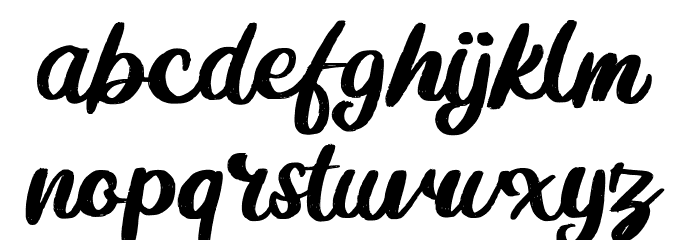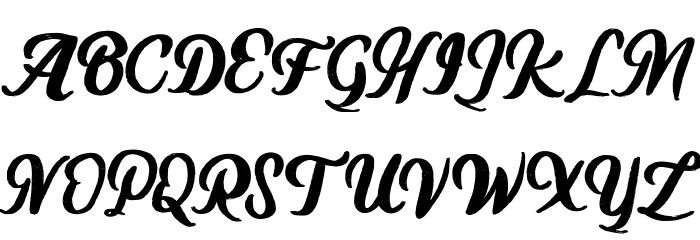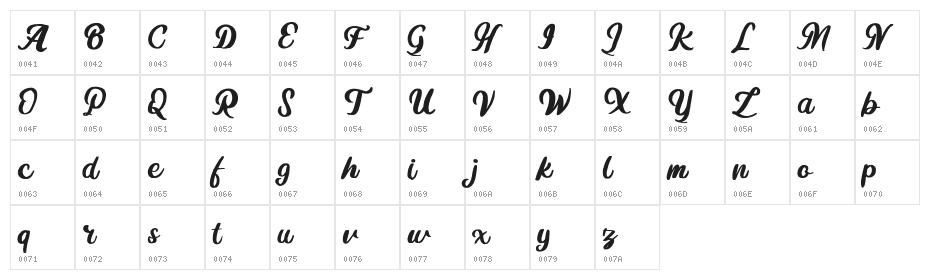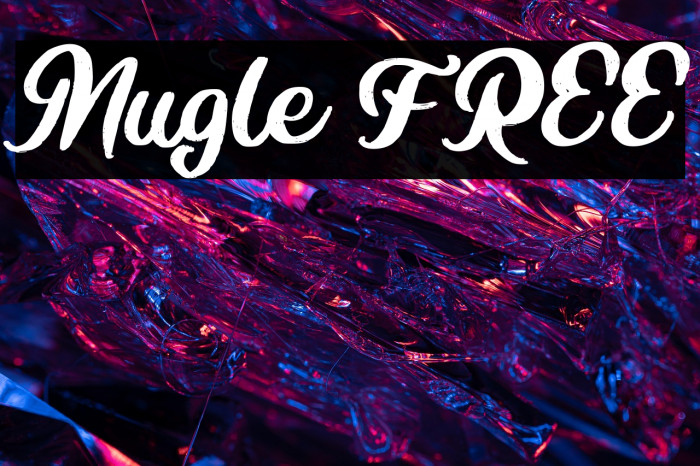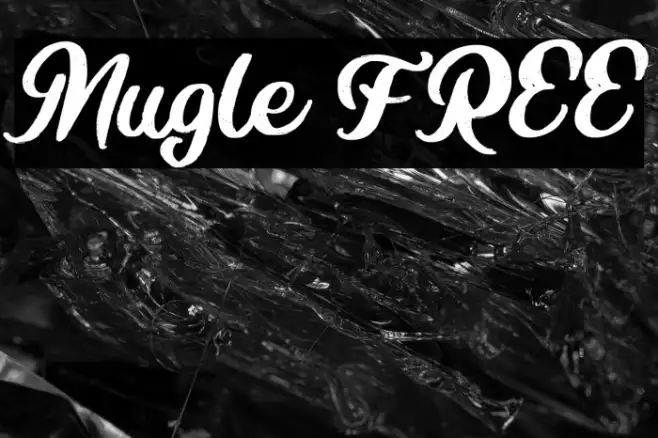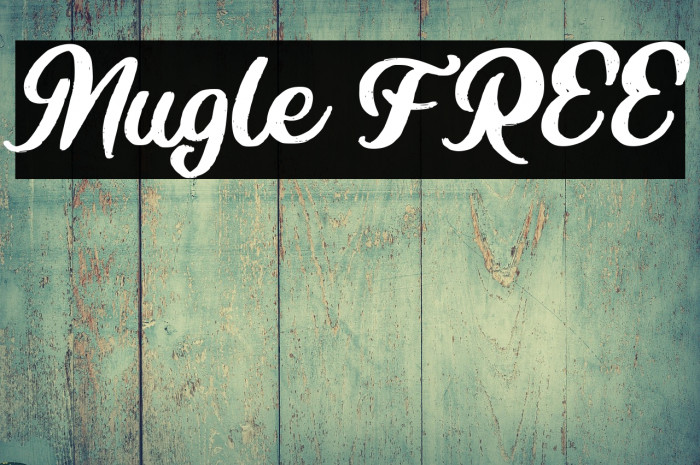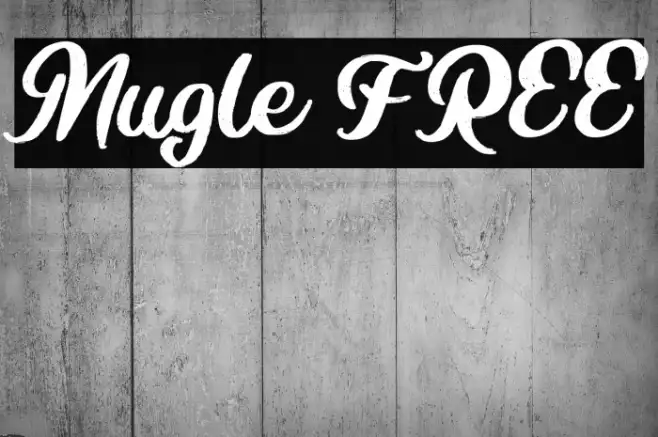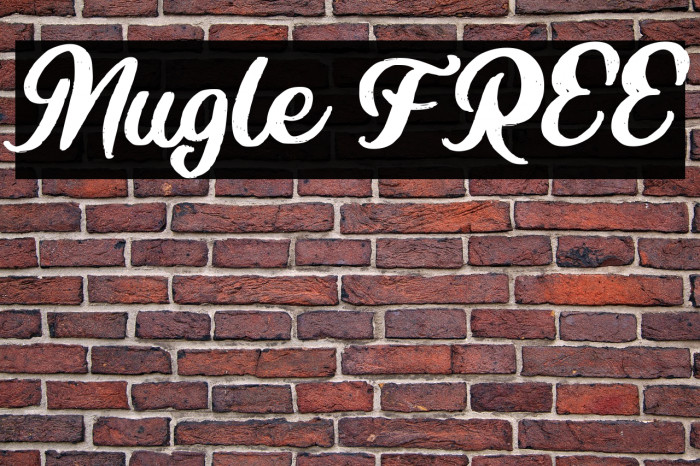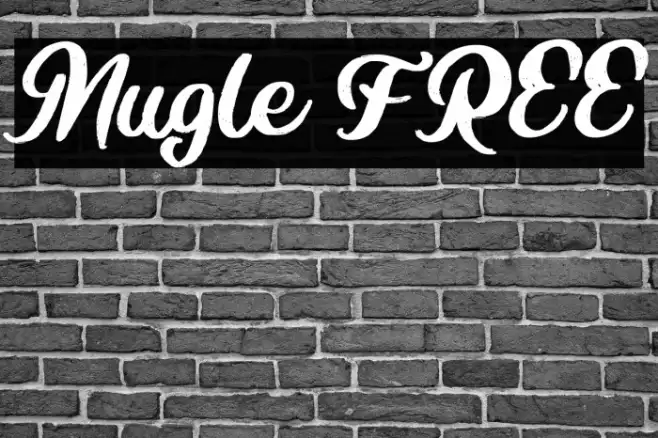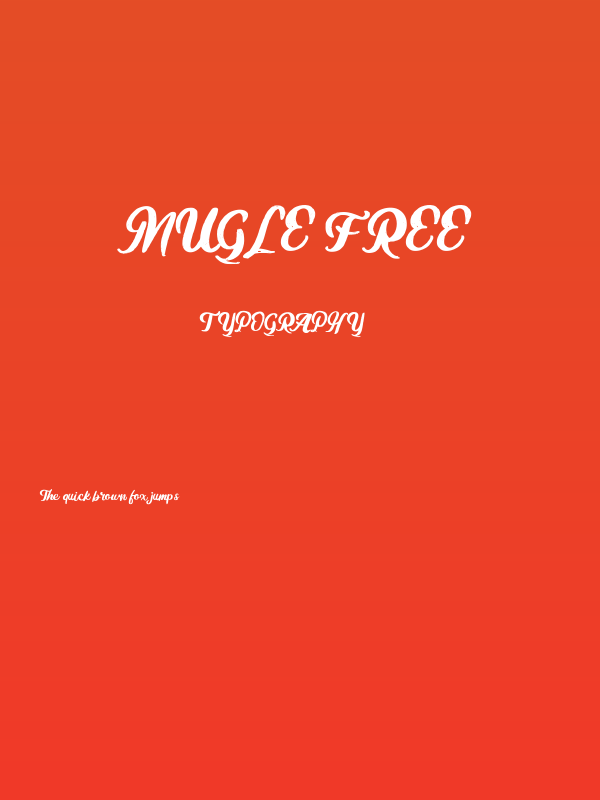
Mugle FREE Font
This font features a bold and flowing script style, characterized by elegant, sweeping curves and a sense of fluidity. The uppercase letters are ornate, with exaggerated loops and flourishes that give a sense of movement and grace. The lowercase letters maintain a consistent style, with smooth connections between strokes, enhancing the overall cohesiveness of the design. The numbers and special characters are designed to match the script's aesthetic, ensuring uniformity across all elements. The font's boldness makes it stand out, while its script nature adds a touch of sophistication and elegance.
A bold, flowing script font with elegant curves and ornate flourishes.
- Proposed Projects: Ideal for wedding invitations, branding projects, greeting cards, and elegant signage.
- Use Case: Logos, Headlines, Invitations